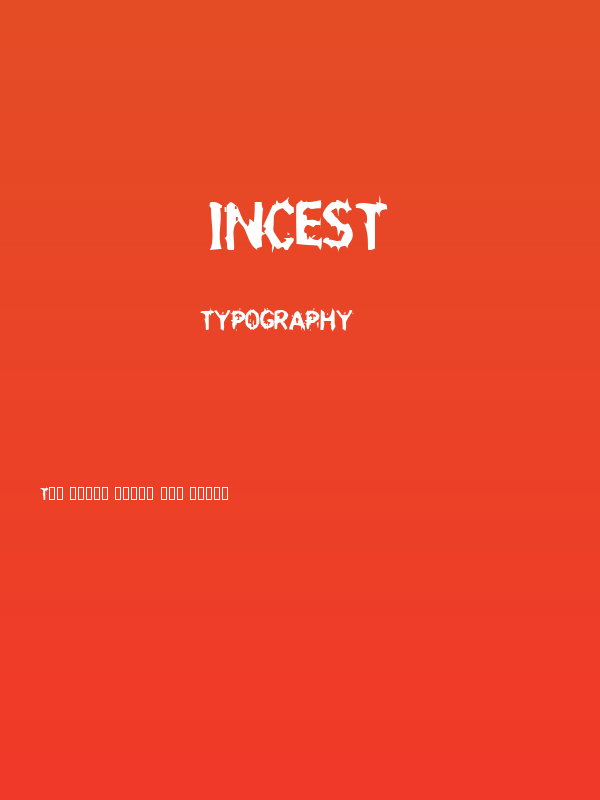
Incest Font
Incest Description
This font features a bold and distressed style, with each letter appearing as if it has been splattered with ink or paint. The uppercase letters are jagged and irregular, giving a chaotic and edgy appearance. The overall look is highly decorative, making it suitable for projects that require a strong visual impact. The font does not include lowercase letters, numbers, or special characters, which limits its use to specific design contexts. Its unique style is reminiscent of graffiti or urban street art, making it ideal for creative and unconventional designs.
| Proposed Projects | Album covers, posters, street art designs, and edgy branding materials. |